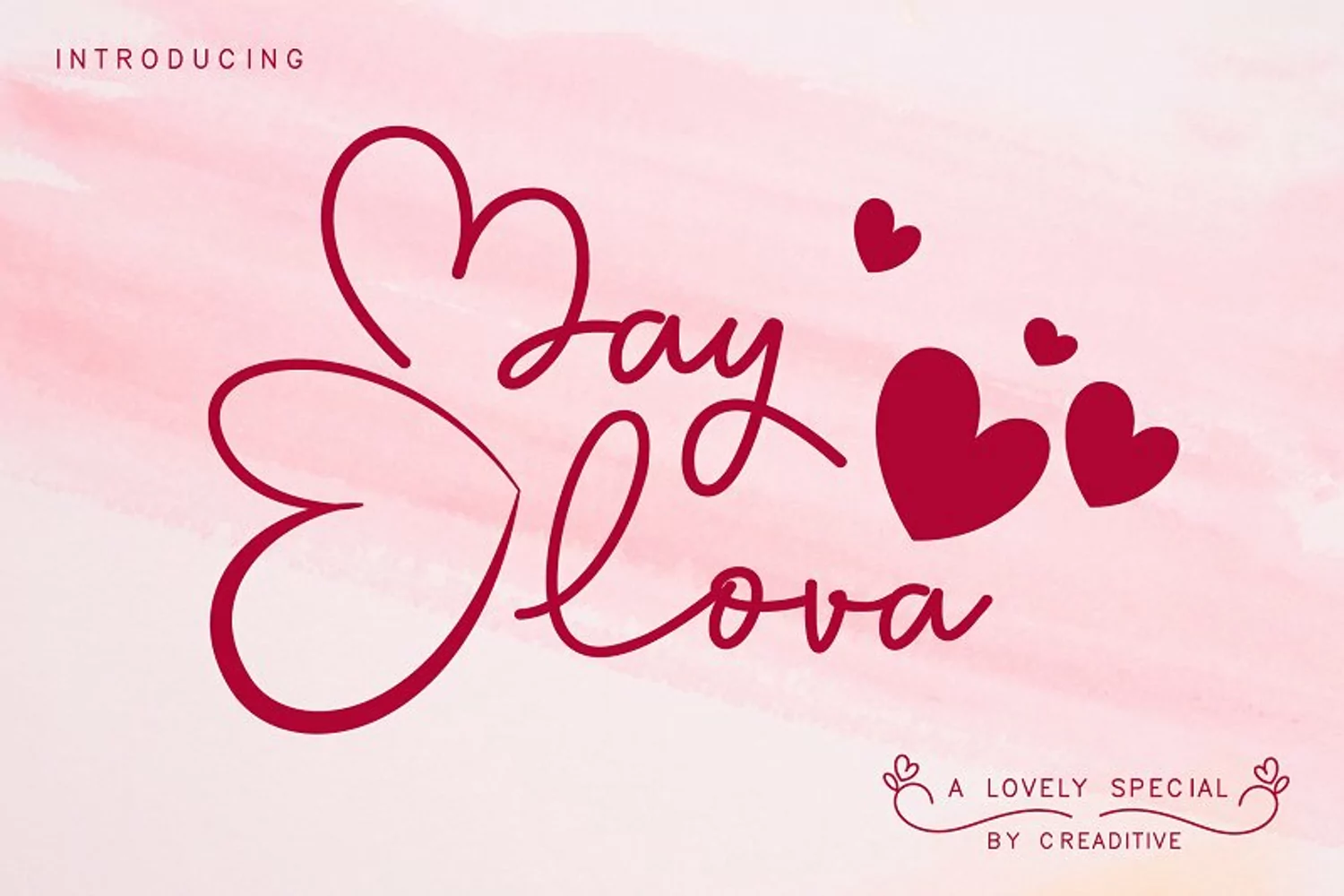
May Lova is a gorgeous and romantic handwritten font. It looks stunning on wedding invitations, thank you cards, quotes, greeting cards, logos, business cards and every other design which needs a handwritten touch.